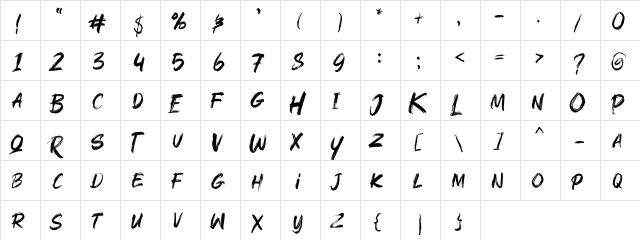
Rushink DEMO Regular
| Foundry | Degi Kurniawan |
| Designer | Degi Kurniawan |
Design Context for Rushink DEMO Typeface
Rushink DEMO is a composed and adaptable typeface that performs quietly and consistently across a wide range of design contexts.